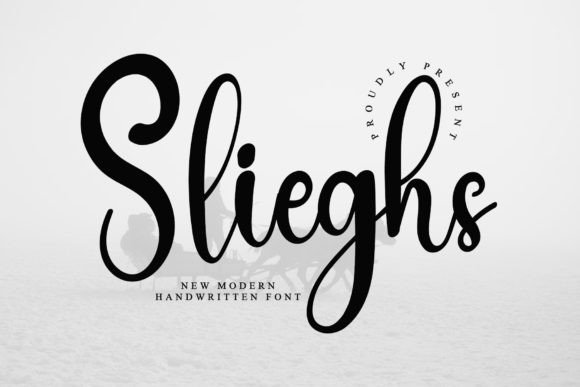
Welcome to the world of Slieghs Font, a captivating script typeface poised to enchant your creative endeavors! This meticulously crafted font is a symphony of elegance and modernity, bearing the legacy of classic calligraphy while exuding a fresh, contemporary vibe. Immerse yourself in its timeless beauty and elevate your projects to new heights of artistry.
Unleash your imagination and explore the boundless possibilities Slieghs Font presents. Its graceful curves and whimsical flourishes lend a touch of sophistication to logos, invitations, branding, social media posts, and any project yearning for a dash of charm. Experience the sheer joy of transforming ordinary words into captivating works of art.
With Slieghs Font as your creative ally, you'll discover a world where imagination knows no bounds. Its versatility allows you to effortlessly adapt to diverse projects, ranging from heartfelt wedding invitations to bold marketing campaigns. Watch as your designs blossom with an aura of elegance and distinction.
Step into the realm of Slieghs Font and embark on a journey of creative expression. Let its timeless allure captivate your audience, leaving an indelible mark on their hearts and minds. Experience the thrill of crafting designs that resonate, inspire, and evoke a sense of wonder.